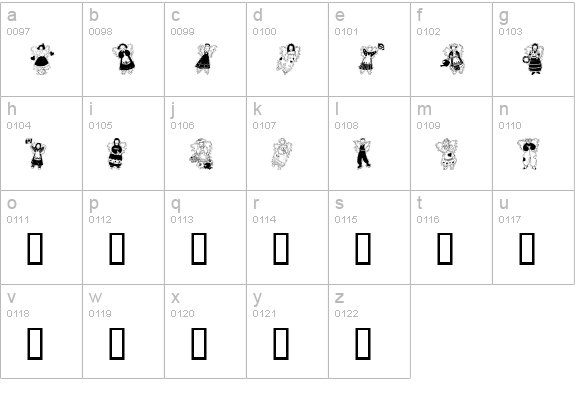
Introducing Angels around the world font, a whimsical and elegant typeface that captures the essence of heavenly grace and celestial beauty. This unique font features delicate curves and graceful strokes that evoke an ethereal presence, making it perfect for adding a touch of serenity and sophistication to your design projects. Angels around the world font is freely available to download at FontsMarket.com, allowing you to effortlessly incorporate its angelic charm into your creations without any cost. Whether you're working on invitations, greeting cards, posters, or branding materials, this font will bring a sense of heavenly inspiration to your designs. With its timeless and enchanting design, Angels around the world font is sure to captivate your audience and elevate your projects to new heights. Embrace the celestial allure of this font and let your creativity soar with every letter and word you write. Download Angels around the world font today and infuse your designs with a touch of divine beauty.